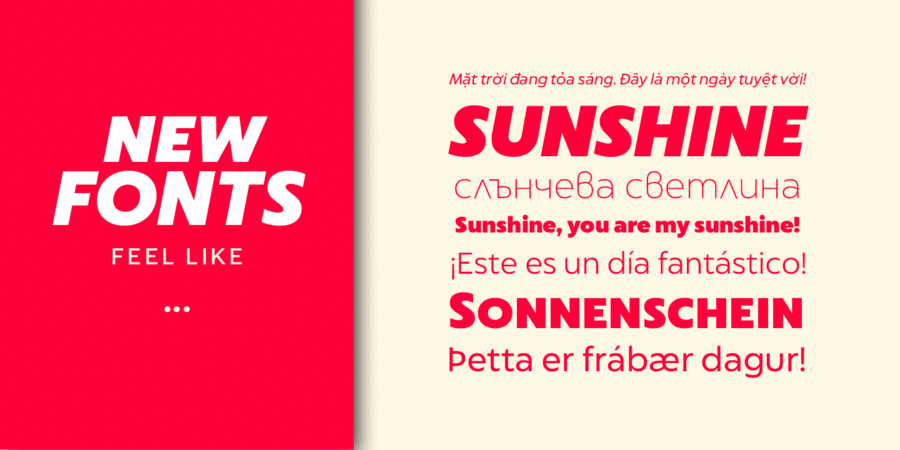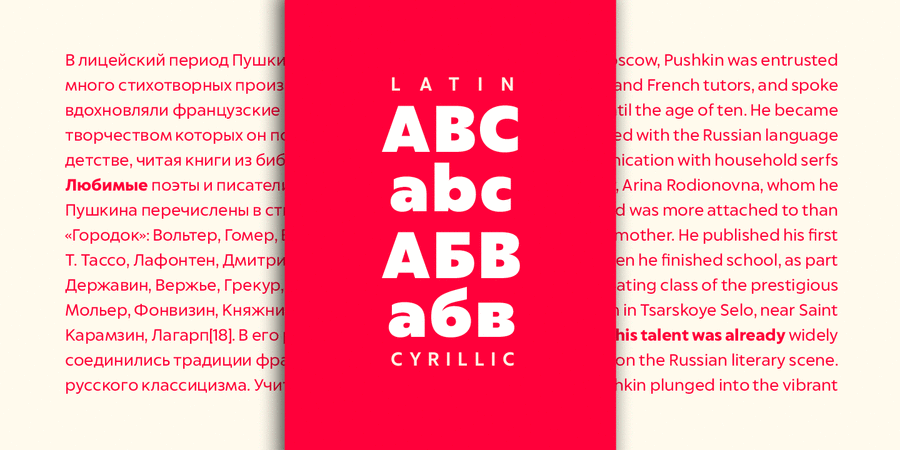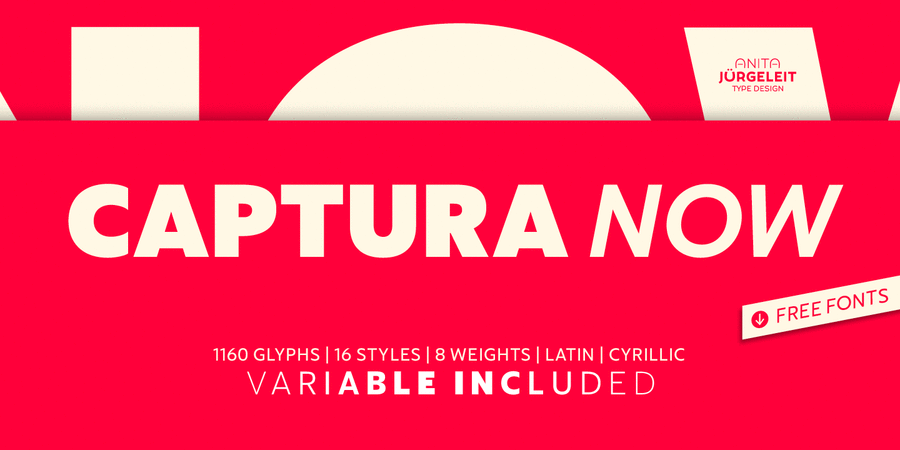
About Captura NowThis font family supports you create your next award-winning typographic experience. Captura Now includes 18 Styles (8 Weights + Italics) and 2 variable fonts. Each font style contains 1160 Glyphs. Carefully refined shapes and sensitively balanced spacing and kerning create the gentle rythm that grants Captura Now its warm-hearted face, perfect in form and shape. Expanded with an enormous character set, Captura Now offers the freedom to transform your design into the Cyrillic-language world, as well as into any Latin based language — including Vietnamese.
Select one of the predefined styles or choose to continuously adjust the weights using the brand new variable font technology. Numerous OpenType-features have been implemented to simplify your work process: Access All Alternates, Localized Forms, Subscript, Scientific Inferiors, Superscript, Numerators, Denominators, Fractions, Ordinals, Proportional Figures, Tabular Figures, Small Capitals From Capitals, Small Capitals, Ligatures, Slashed Zero, Stylistic Alternates. Captura Now supports 256 Languages.
The typeface was designed by Anita Jürgeleit in 2021.
Associations for font family Captura NowTypeface personality and character:
calm, minimalistic, delicate, clean, easy, chilly, fresh, fashionable, thin, modern, laconic, clear, flat, high-quality, weightless, accurate, glass, sharp, cutting, crisp, wire, available, comfortable, simple, globalized, globalistic, urban, strict, serious, low key, motivating, solid, convincing, daring, splashy, heavy, strong, self-assured, stable, powerful, notable, bright, active, important, technogenic, close-fitting, square, severe, ambitious
perfumery, lotion, beauty, Eau de Toilette, shampoo, cosmetics, fashion, innovations, barbershop, diet, design, hygiene, purity, device, gadget, society, city, clothes, coworking, sky, water, transport, airport, Metro, navigation, medicines, footwear, equipment, pharmacy, bus, news, policy, tool, energy industry, fuel, power station, technology, Freight, truck, trucker, Delivery, logistics, building, mechanical engineering, factory, industry, machine tool, fitness equipment Typeface associated with age: